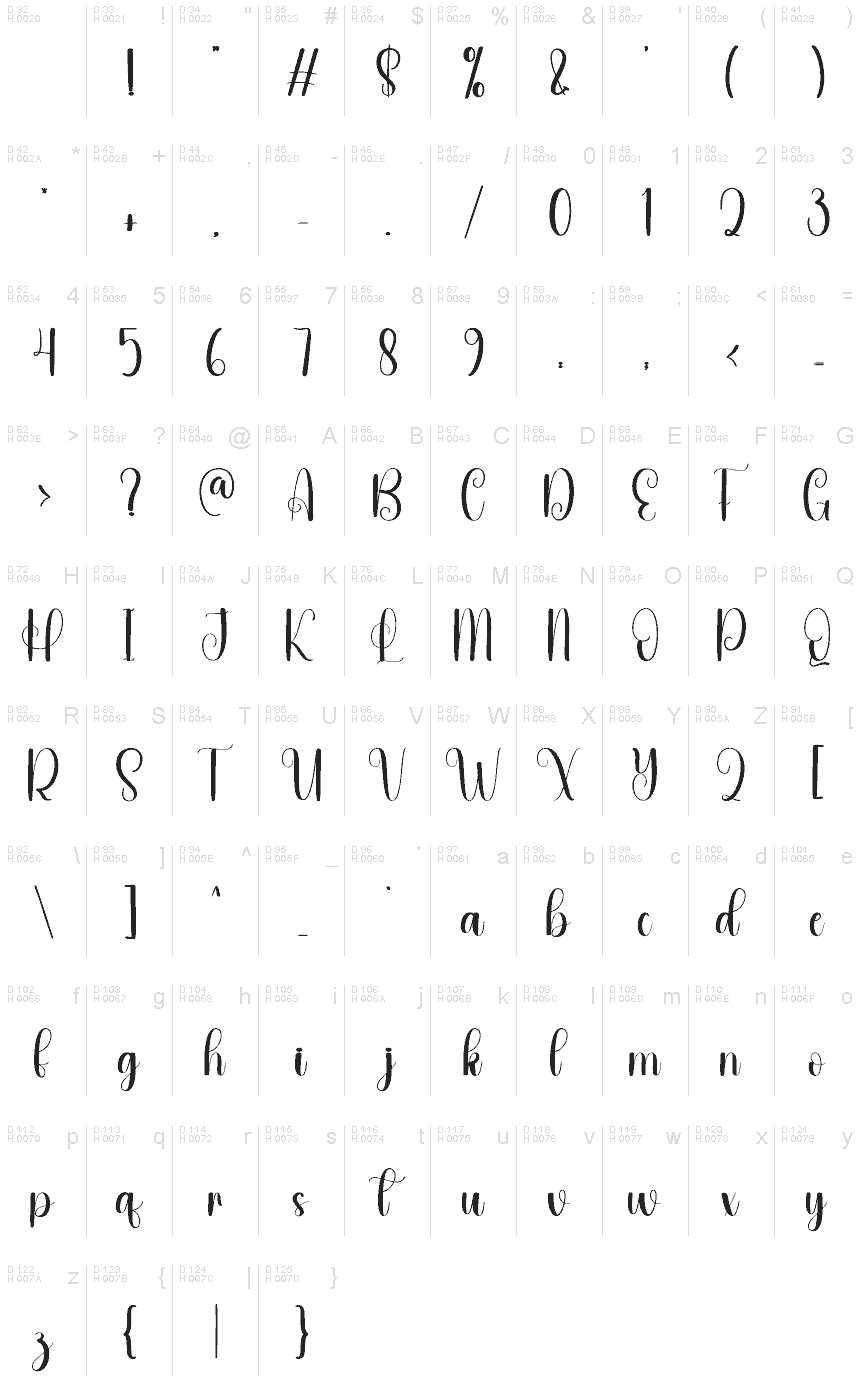
Emirate
Emirate font by Andi Moz is a free calligraphy font with a sophisticated style and decorative look. Expressive by nature, Emirate captures the romantic spirit with elegant outline curves and smooth strokes. It has an organic flowing visual rhythm which grants it an aesthetic value that is hard to resist, making it suitable for multiple occasions.
Write freely in logos, magazine covers, posters, items packaging, advertisements as well as invitations for weddings or other special events. Its style also fits for typographic quotes added to social media posts dedicated to brands within the cosmetics or fashion field.